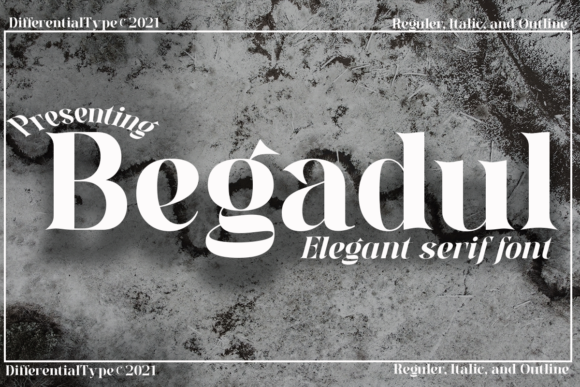
Unlock the secrets of masterful typography with Begadul, the captivating serif font that will transform your written creations into works of art. Its meticulously crafted curves and elegant letterforms dance across the page, creating an unparalleled visual experience that will leave a lasting impression on your readers.
Immerse yourself in the world of Begadul, where every stroke is a testament to the beauty and power of the written word. Its contrasting thickness adds a touch of intrigue and sophistication, making your words stand out with grace and distinction. Whether you're crafting an enchanting greeting card, designing a captivating magazine cover, or embarking on the literary journey of a lifetime, Begadul will be your faithful companion, guiding your words towards greatness.
With Begadul, your words will transcend the mundane and blossom into a symphony of elegance. Its versatility knows no bounds, adapting seamlessly to any writing style, from heartfelt poems to gripping novels. Let your imagination soar as Begadul elevates your work to new heights, transforming every letter into a masterpiece that captivates the senses and lingers in the memory.
Join the ranks of discerning writers and designers who have embraced the allure of Begadul. Allow its timeless beauty to inspire your creativity, and experience the joy of crafting written works that resonate with readers on a profound level. With Begadul, your words will not merely be read—they will be cherished, remembered, and passed down through generations to come.